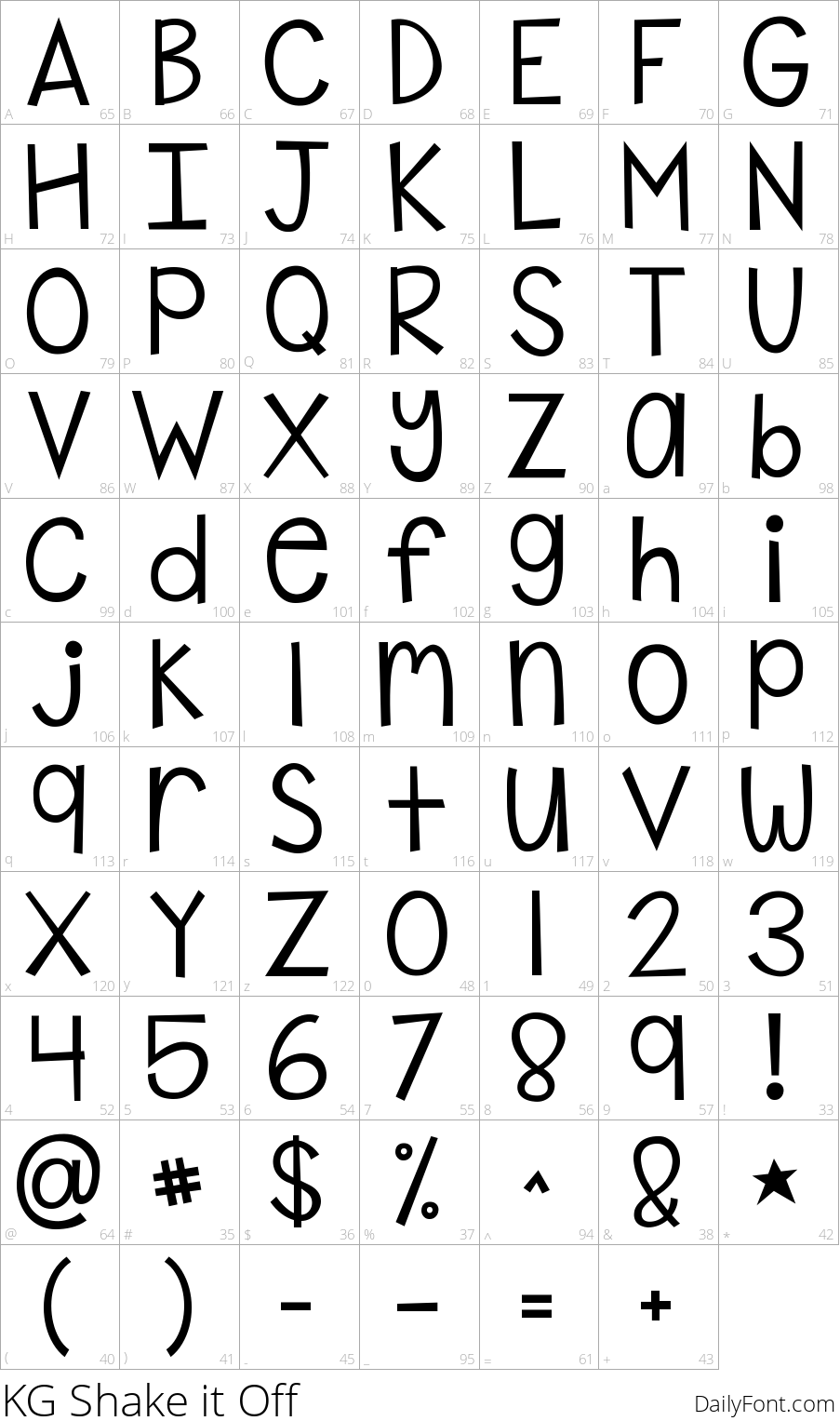
Kg Shake It Off
KG Shake It Off is a playful hand display font perfect for adding a whimsical touch to your designs. Ideal for children's projects, this font family features four unique styles that capture fun and creativity.